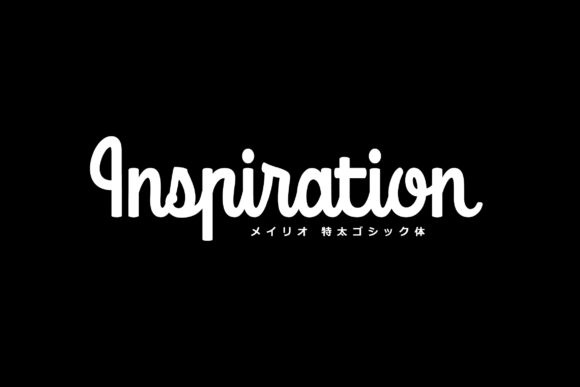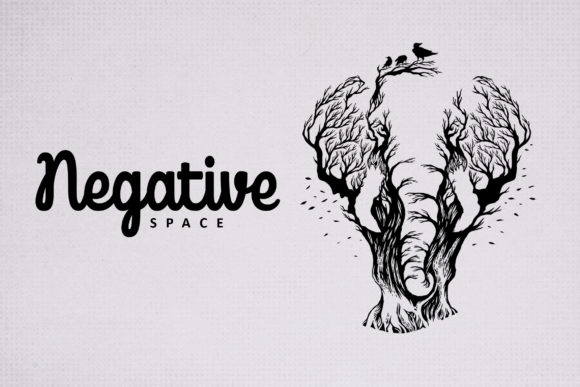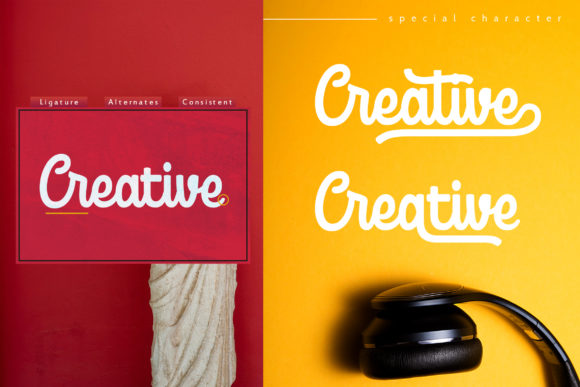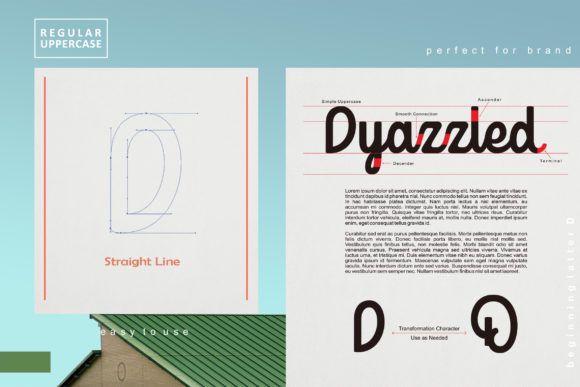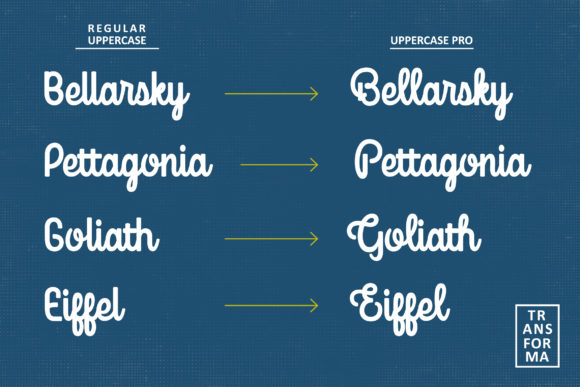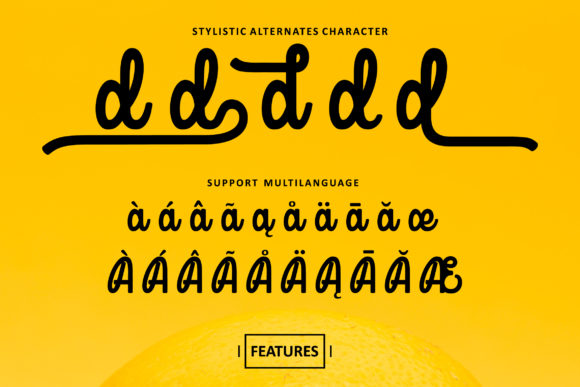
Introduction to Mondella Font
Have you ever been working on a creative project and suddenly, you’re stuck on finding the perfect font? You want something that will bring your design to life, something that will give it a unique touch. For designers, the right font can make all the difference between a good design and a great one.
That’s where the Mondella Font comes in. This playful, yet elegant handwritten font has a charm that’s hard to resist. With its unique twist, it will put a fresh spin on any design project, making it a valuable resource for designers. Whether you’re working on a logo, a poster, or a social media graphic, the Mondella Font is sure to add that extra oomph that will make your design stand out.
Key Features of Mondella Font
- Features a unique, stylish design that can add a touch of elegance to any creative project.
Honest Review: Mondella Font
I recently had the chance to work with the Mondella Font, and I must say it’s been a game-changer for my creative projects. This high-quality font is a great addition to any designer’s toolbox, offering a unique and elegant style that’s perfect for a variety of designs.
One of the things that stands out about the Mondella Font is its versatility. It’s great for both digital and print designs, and can be easily paired with other fonts to create a cohesive look.
Here are some things that work well with the Mondella Font:
- ✨ High quality: The font is well-designed and looks great at any size, making it perfect for both small and large-scale designs.
- ⚠️ Limited font weights: While the font has a lot of style options, it’s limited in terms of font weights, which can make it difficult to achieve the perfect look in certain situations.
Overall, I’m really impressed with the Mondella Font, and I think it’s a great addition to any designer’s toolkit. While it’s not perfect, its strengths far outweigh its weaknesses, making it a valuable resource for any creative project.
Mondella Font
Tips for Getting the Most Out of Mondella Font
For the best results, use the Mondella Font with a transparent background to create a clean and modern design. Experiment with different font sizes and colors to add visual interest to your project.
The Mondella Font is ideal for a variety of creative projects, including branding, marketing materials, and editorial content. Its unique style and high-quality design make it a great option for designers looking to add a touch of elegance to their work.